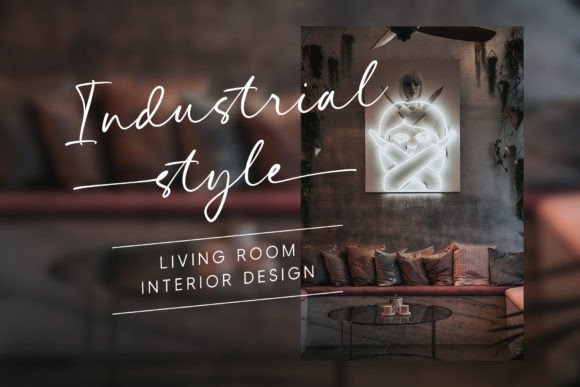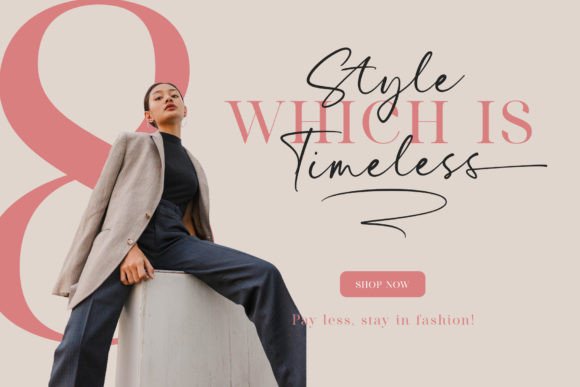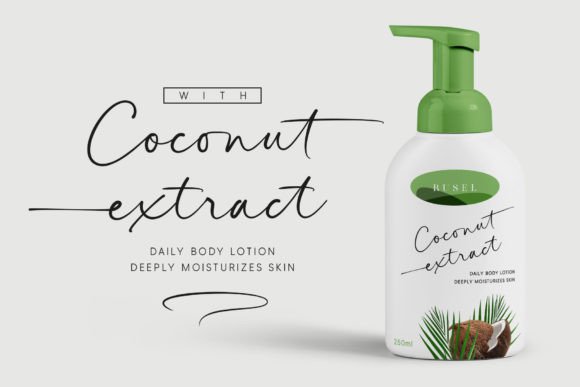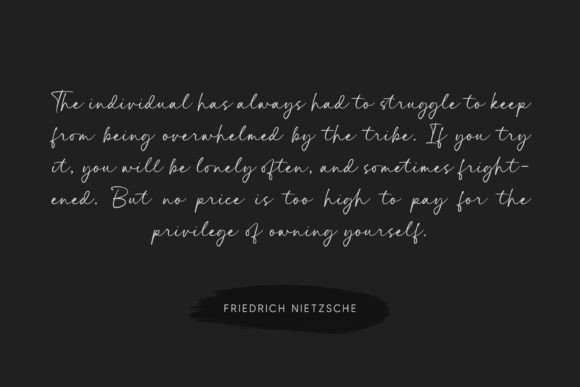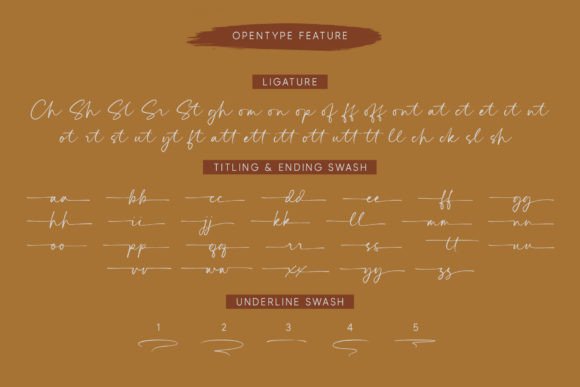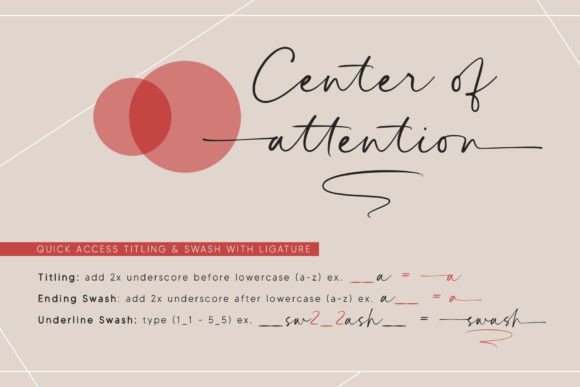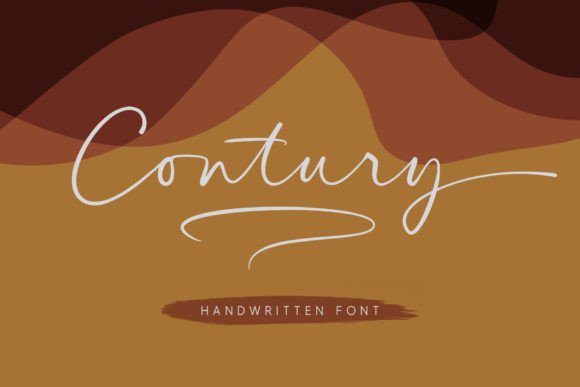
Introducing Contury Font: Elevate Your Designs with Elegance and Sophistication
In the world of design, fonts play a crucial role in conveying the tone and personality of a project. If you’re looking for a font that exudes luxury, elegance, and a touch of uniqueness, look no further than Contury Font. This stunning handwritten font is designed to make a lasting impact, adding a spark of sophistication to any design project you create.
The Unique Feel of Contury Font
Contury Font boasts a distinctive, elegant handwritten style that sets it apart from other fonts. Its unique feel is characterized by flowing lines, subtle variations in line width, and a sophisticated flair. This font is perfect for designers and crafters who want to add a touch of luxury to their projects, whether it’s a logo, branding, invitation, wedding design, advertisement, product packaging, or label.
Versatility at Its Best: Use Contury Font for Various Projects
One of the standout features of Contury Font is its versatility. This font can be used for a wide range of projects, including:
• Logos & Branding: Create a lasting impression with a unique and elegant logo that reflects your brand’s personality.
• Invitations: Add a touch of sophistication to your invitations, making them perfect for special occasions like weddings, birthdays, and anniversaries.
• Wedding Designs: Make your wedding designs truly unforgettable with Contury Font’s elegant and romantic feel.
• Advertisements: Grab attention and convey luxury with Contury Font, perfect for ads that require a high-end feel.
• Product Packaging: Elevate your product packaging with a font that exudes elegance and sophistication.
• Product Designs: Add a touch of luxury to your product designs, making them stand out in a crowded market.
• Labels: Create labels that are both functional and visually appealing with Contury Font.
Why Choose Contury Font?
With so many fonts available, why choose Contury Font? Here are just a few reasons:
• Unique and Elegant: Contury Font offers a distinctive, elegant style that will set your designs apart.
• High-Quality: This font is crafted with attention to detail, ensuring a high-quality finish that will impress.
• Versatile: Use Contury Font for a wide range of projects, from logos and branding to invitations and product packaging.
• User-Friendly: Contury Font is easy to use and integrate into your designs, making it perfect for designers and crafters of all levels.
Tips for Using Contury Font Effectively
To get the most out of Contury Font, here are a few tips:
• Pair with Neutral Backgrounds: Contury Font shines on neutral backgrounds, allowing its elegance to take center stage.
• Experiment with Colors: Try pairing Contury Font with different colors to create unique and eye-catching designs.
• Play with Sizes: Experiment with different font sizes to create visual hierarchy and add emphasis to your designs.
Contury Font is a game-changer for designers and crafters looking to add a touch of luxury and elegance to their projects. With its unique feel, versatility, and high-quality finish, this font is sure to become a staple in your design toolkit. Whether you’re creating logos, invitations, wedding designs, or product packaging, Contury Font is the perfect choice. So why wait? Download Contury Font today and elevate your designs to new heights!